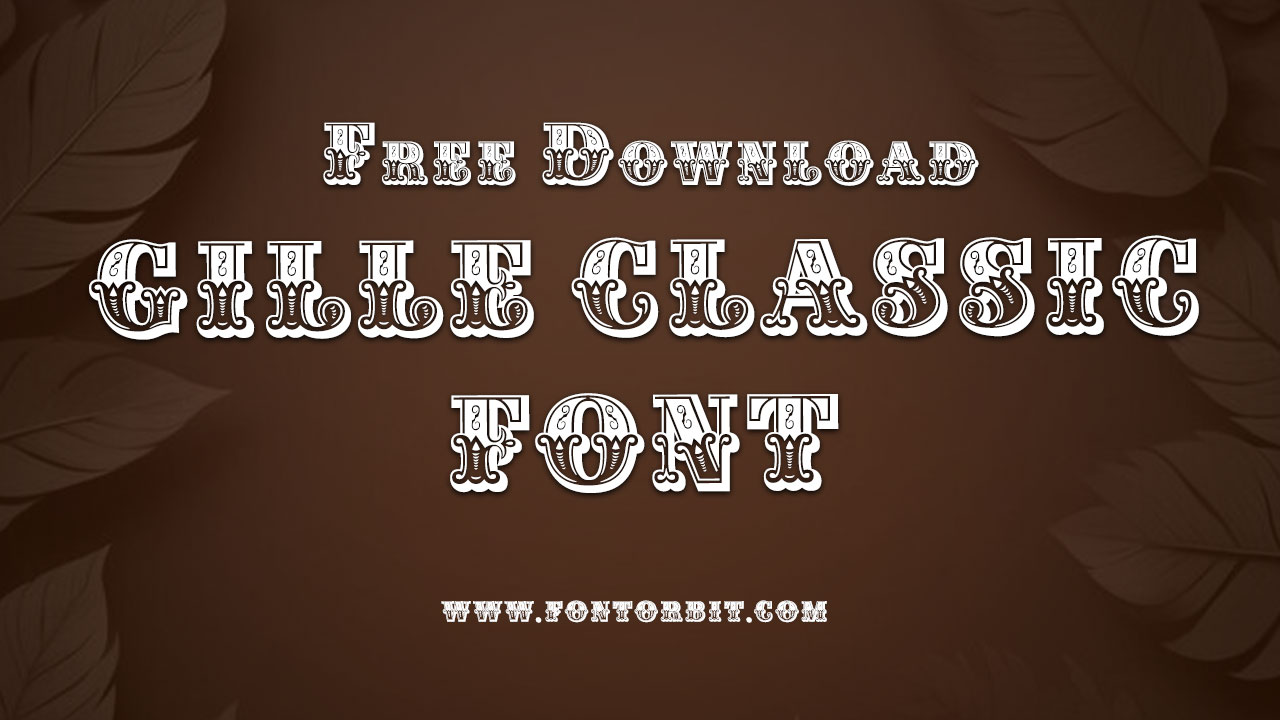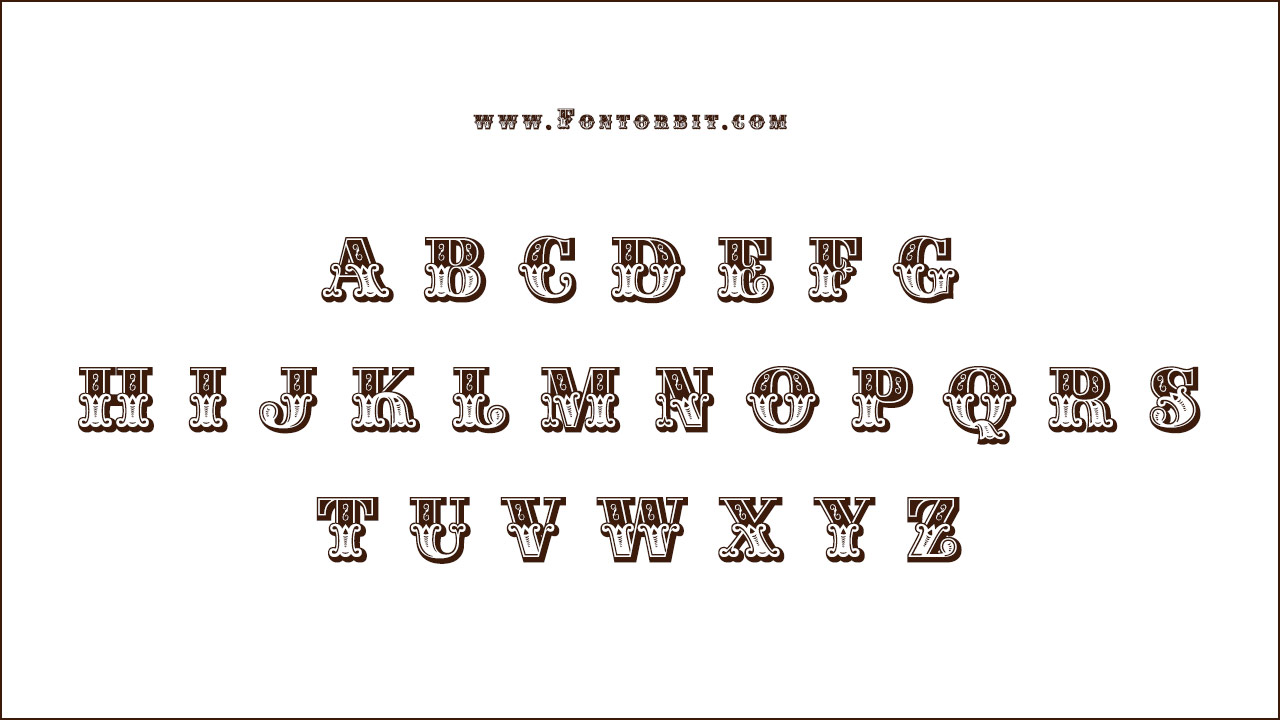
Michael Hagemann designed Gille Classic Font, first published on June 14, 2024. This elegant, decorative typeface offers a refined, vintage look perfect for various projects.
With its classic style and versatile design, Gille Classic is an ideal choice for adding a touch of sophistication to your design projects.
The Gille Classic Font is a distinctive display typeface available in OTF and TTF formats and is free for personal use. This font features a foreign look, and Gothic Script elements, making it versatile for various design needs.
Its character map includes a wide array of glyphs, providing extensive coverage for decorative and thematic purposes. The font family offers a rich collection of ornate and intricate glyphs, ideal for creating eye-catching titles, invitations, and themed graphics.
The Gille Classic Font is commonly used across various design mediums for its classic and stylish look. It is often seen in posters and logos, where its elegant appearance adds a touch of sophistication.
This font is also popular in product packaging, providing a vintage charm that appeals to consumers. On social media and thumbnails, the Gille Classic Font enhances visual impact, making content more engaging. Additionally, it is used in educational and official documents to give a refined and professional appearance, suitable for formal communication.
Gille Classic Font, designed by Michael Hagemann, offers a sophisticated and vintage display style. It’s perfect for a wide range of projects, from business branding to creative designs. Available in OTF and TTF formats, it’s free for personal use but requires a paid license for commercial applications. Its versatility and elegant design make it a valuable addition to any designer’s toolkit.
It is a decorative display typeface with bold and elegant features, inspired by the Old font Joseph Gille.
Designed by Michael Hagemann.
It pairs well with modern fonts like Gotham Medium for a stylish contrast.